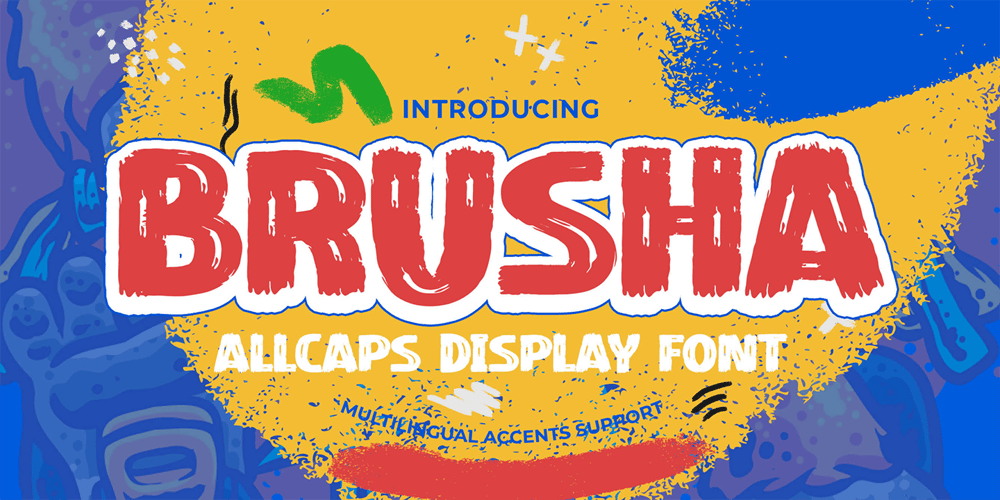
Brusha
Brusha font
Brusha Font Family was designed by Abdul Malik Wisnu, Anang Fibriyanto and published by Gassstype. Brusha contains 1 styles and family package options. Here comes a New font,Introducing BRUSHA It’s All Caps Display Font is a Textured Natural Style and classy style, this font is great for your creative projects such as watermark on photography, and perfect for logos & branding, invitation,advertisements,product designs, stationery, wedding designs,label ,product packaging, special events or anything that need handwritting taste.